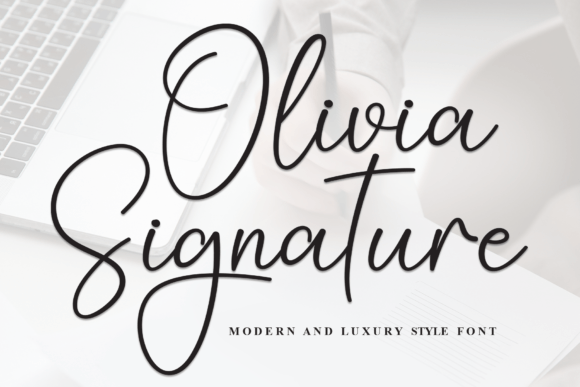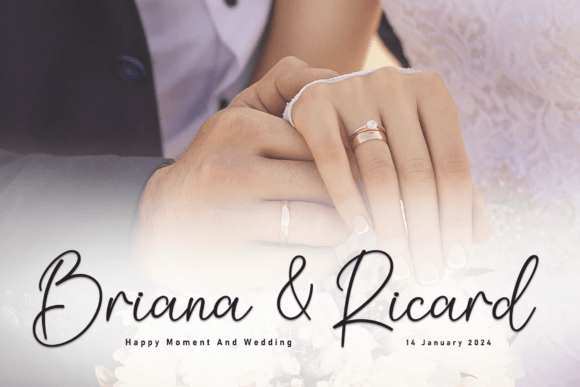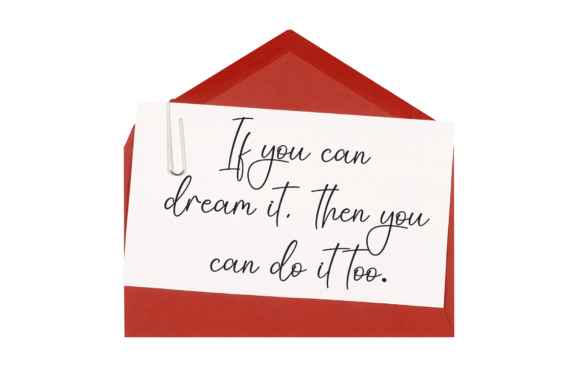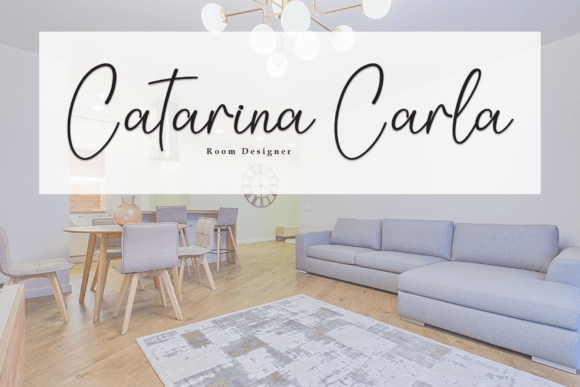
Olivia Signature Font
About the Olivia Signature Font
We are excited to introduce Olivia Signature Font, a must-have typeface for any serious designer. Meet Olivia Signature, your passport to elegance and sophistication. This luxury script font effortlessly adds a touch of class to your projects. With its graceful curves and refined strokes, Olivia Signature brings a sense of timeless beauty to your designs. Perfect for upscale events, invitations, or any project where a touch of luxury is desired. Elevate your typography and make a statement with the understated opulence of Olivia Signature.
Olivia Signature excels in applications requiring high visual impact and sophistication. It’s ideal for headlines, logos, short taglines, and elegant invitations where its refined curves shine. Consider it for branding projects targeting luxury goods, high-end services, or special events. Avoid using it for body text or lengthy paragraphs; its intricate details become less legible at smaller sizes.
Pairing Olivia Signature with a clean sans-serif like Montserrat or a neutral serif such as Lora creates a balanced contrast. For a more playful feel, a geometric sans-serif like Futura could be used. These pairings ensure readability while maintaining the font’s elegant personality.
The font projects a sophisticated and elegant mood, perfect for brands emphasizing quality, exclusivity, and timeless style. Its understated opulence lends itself well to premium products and experiences.